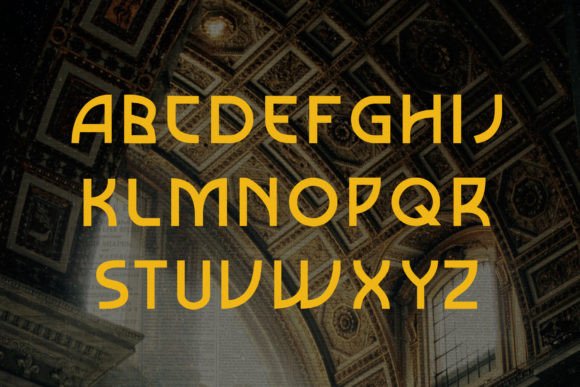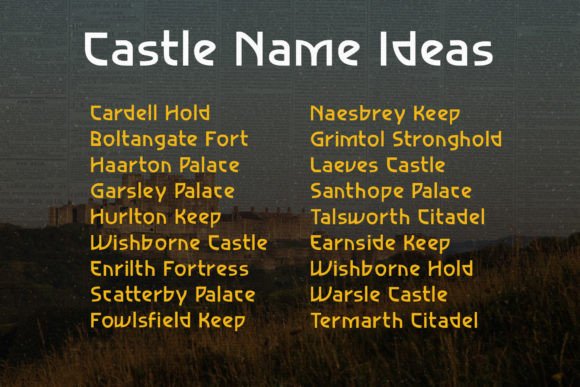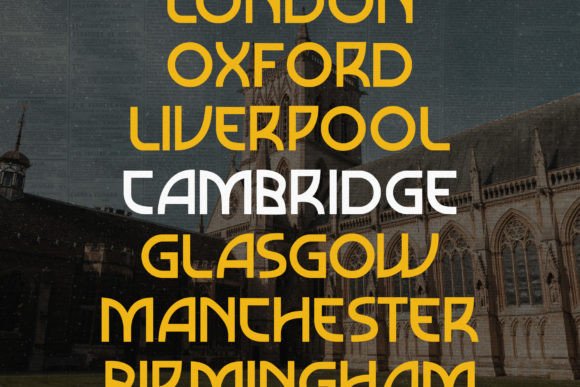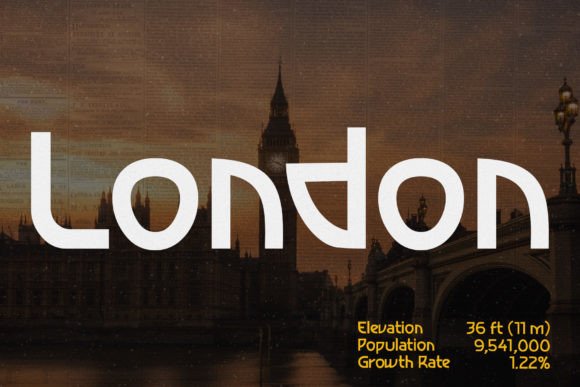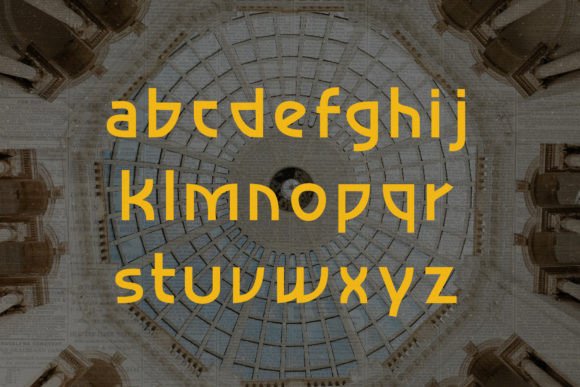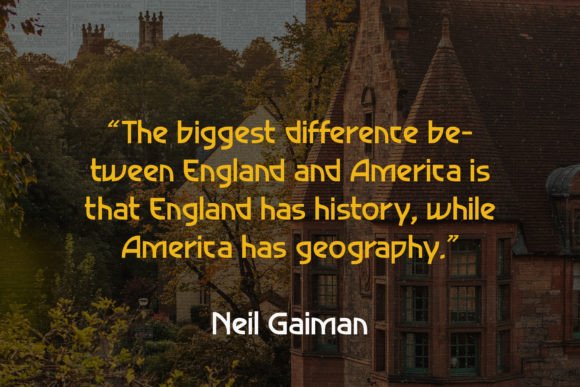
The Timeless Charm of Grayson Font: A Designer’s Delight
I’ll never forget the struggle I faced while working on a branding project for a vintage-inspired boutique. I was on the hunt for a font that embodied the essence of the 1940s art deco era, something that would transport my client’s customers back in time. After hours of scouring through font libraries, I stumbled upon the Grayson font. It was love at first sight! ✨ The clean lines, the elegant curves, and the nostalgic feel – it was exactly what I needed. In this article, I’ll share my experience with the Grayson font, its features, and how to make the most of it in your designs.
A Personal Review: What I Love and What I Don’t
The Good: What I Love About Grayson Font
- ✅ Clean and Easy to Read: Grayson font is incredibly legible, making it perfect for body text and headlines.
- ✅ Memorable Letterforms: The font’s unique letterforms make it stand out and leave a lasting impression.
- ✅ Versatile: Grayson font can be used for a wide range of projects, from branding and advertising to packaging and signage.
- ✅ Art Deco Flair: The font’s art deco inspiration adds a touch of sophistication and glamour to any design.
The Not-So-Good: Small Quirks and Limitations
- ⚠️ Limited OpenType Features: Grayson font has limited OpenType features, which might be a drawback for designers who rely heavily on advanced typography.
- 🤔 Not Suitable for Body Text: While Grayson font is easy to read, it’s not the best choice for long-form body text due to its decorative nature.
The Story Behind Grayson Font
The Grayson font was inspired by vintage store signs in London, New York, and other major cities. Its designer, [Designer Name], wanted to capture the essence of the 1940s art deco era and create a font that would be both nostalgic and timeless. The result is a font that’s perfect for designers who want to add a touch of classic glamour to their work.
Q: What is the Grayson font inspired by?
A: The Grayson font is inspired by vintage store signs in London, New York, and other major cities.
Q: Is Grayson font suitable for body text?
A: While Grayson font is easy to read, it’s not the best choice for long-form body text due to its decorative nature.